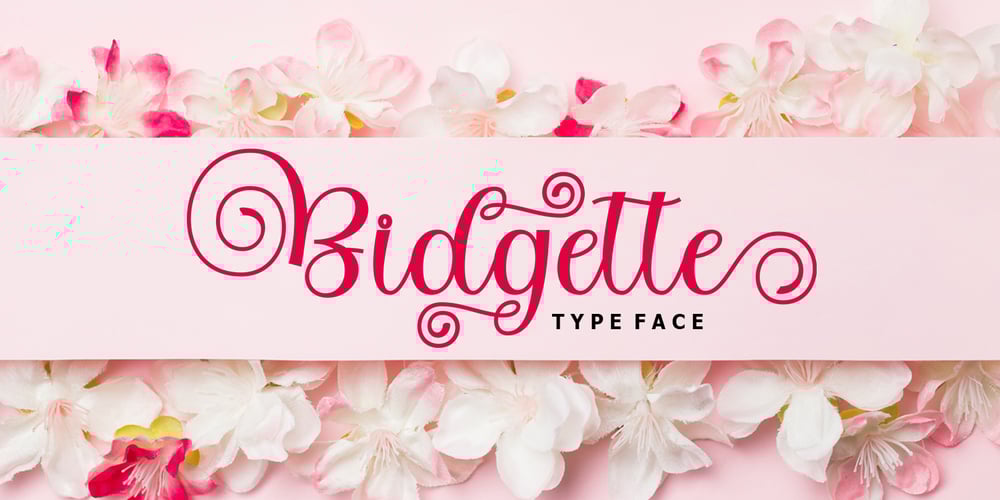
Bitgette Script
Bitgette Script font
Bitgette Script Font Family was designed by Nurul Kamal and published by Nk Studio. Bitgette Script contains 1 styles and family package options. Bidgette Script is a beautiful script font with many alternative styles, this font looks natural, elegant and perfect for extraordinary projects. Bidgette Script is suitable for various products such as invitations, product packaging, offers, product designs, crafters, labels, photography, watermarks, logos & branding. Everything can be accessed using software that supports Opentype, such as Adobe Indesign, Adobe CS Illustrator, Adobe Photoshop CC, and Corel Draw.